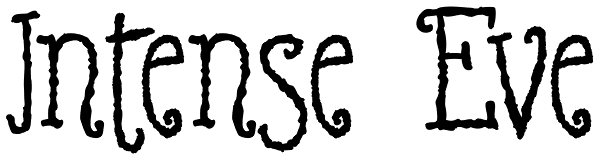
Intense Eve
Intense Eve is a crunchy, girly font with jumpy letters. Romantic indeed, and comes with extra heart swashes to jazz up your text! You will need to use OpenType supporting applications to use the autoligatures